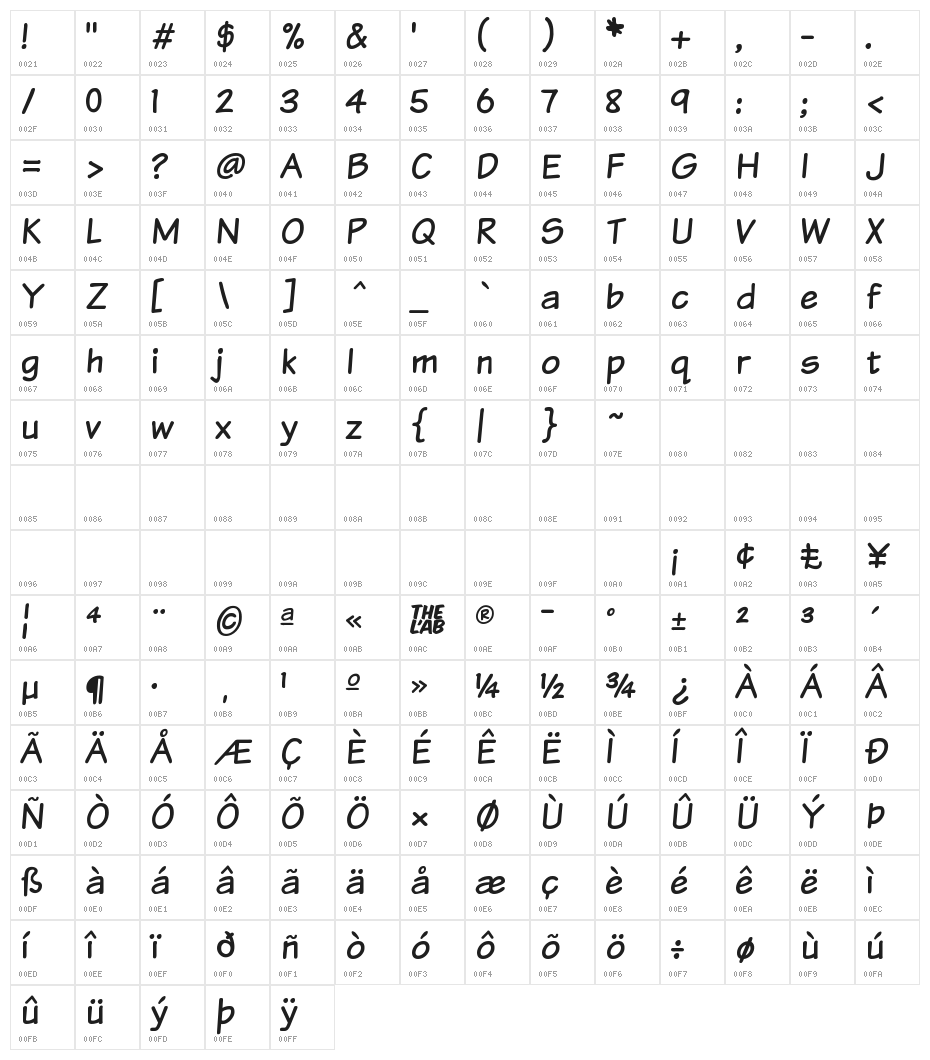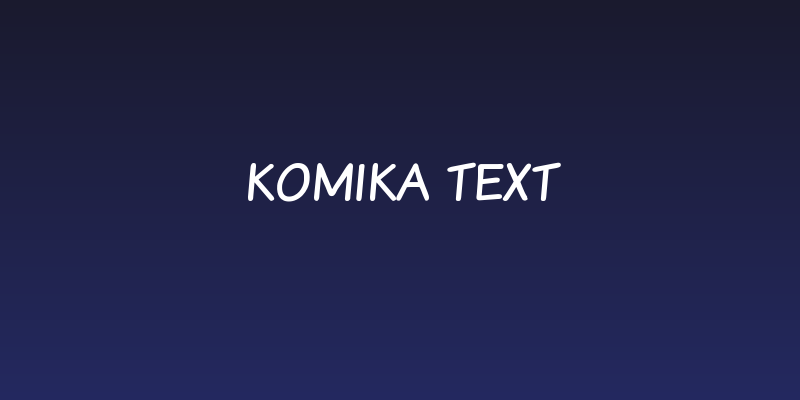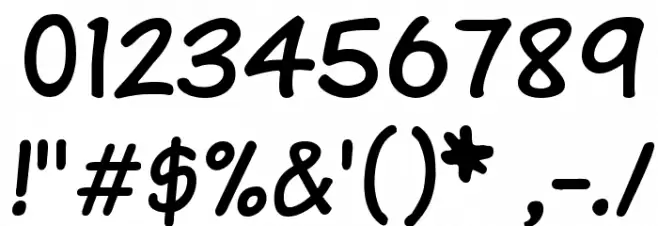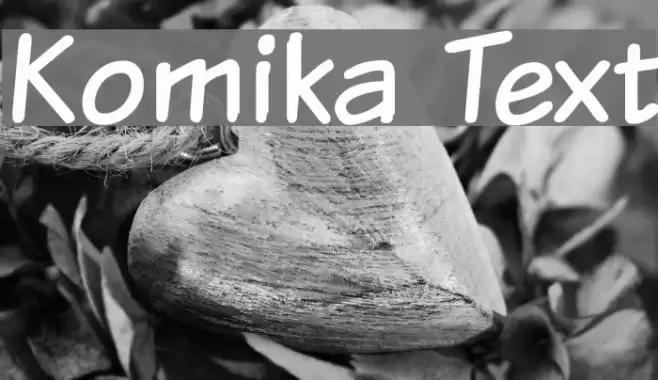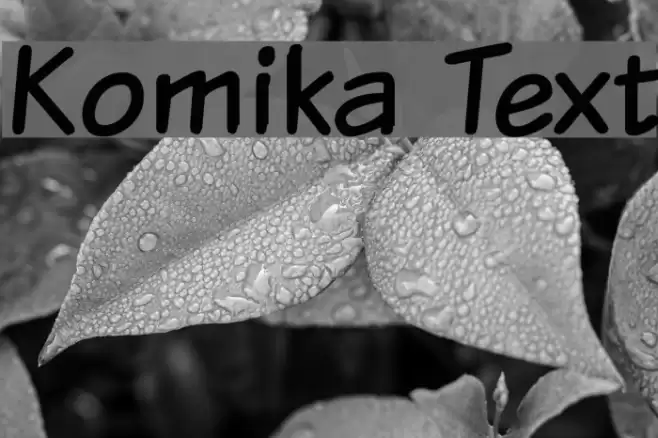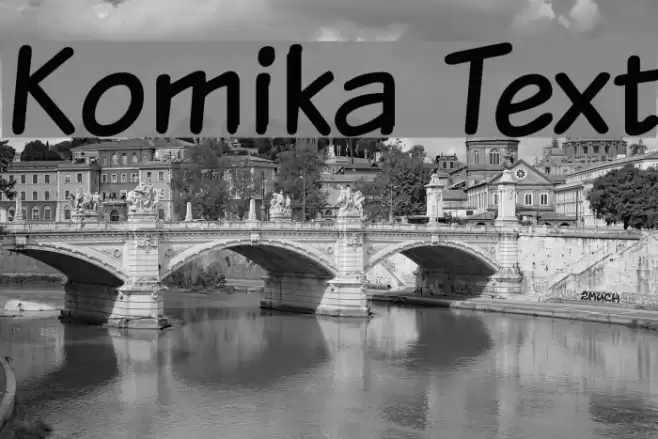
Komika Text Font
Komika Text Description
This playful and informal font features rounded, bold characters with a hand-drawn appearance. The letters are slightly slanted, giving a casual and friendly vibe. The strokes are consistent in weight, providing a uniform look across all characters. The uppercase and lowercase letters maintain a cohesive style, with the lowercase letters slightly smaller and more compact. The numbers and special characters follow the same playful design, making them easily recognizable and visually appealing. This font's overall style is approachable and fun, suitable for projects that require a lighthearted and engaging tone.
| Proposed Projects | Ideal for comic books, children's books, playful branding, and informal invitations. |